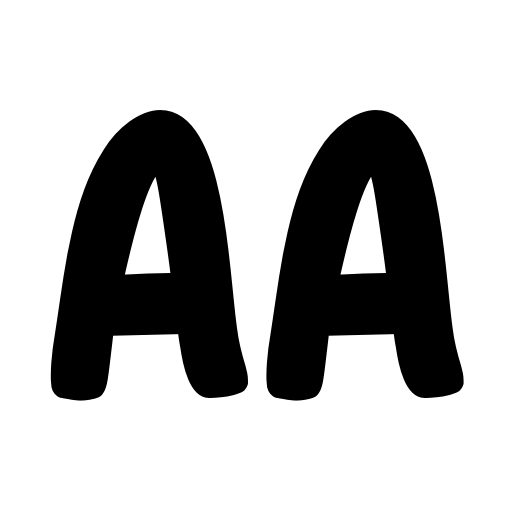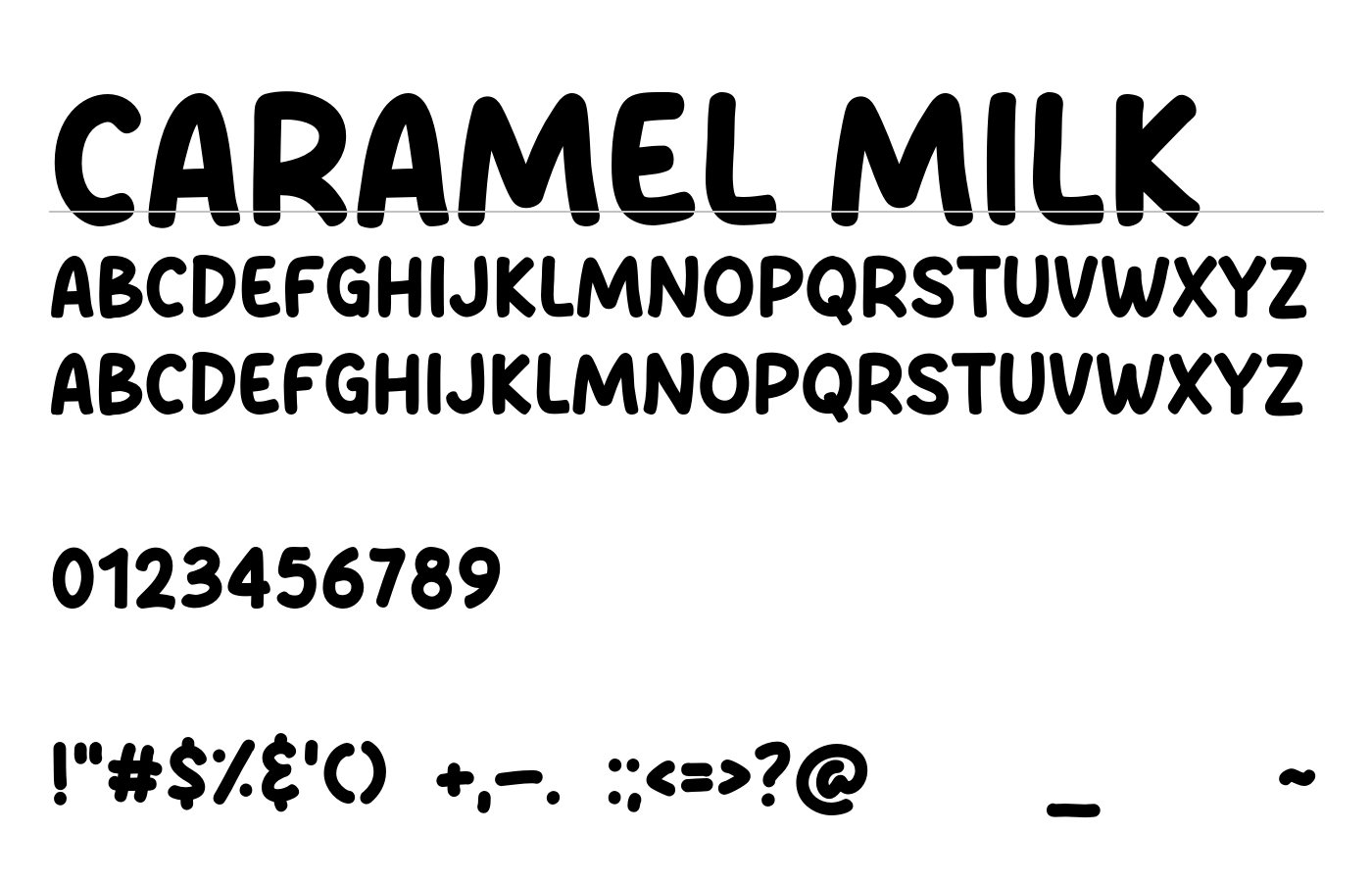
Caramel Milk is a playful and casual sans serif font with a rounded, hand-drawn feel that brings warmth and friendliness to any design. Its bold weight, uniform stroke, and slightly condensed characters make it highly legible and perfect for fun, informal uses like children’s books, packaging, and branding that wants to convey personality and approachability. This font works especially well for headlines and creative projects that benefit from a lively, energetic vibe.
Caramel Milk Font
About Caramel Milk Font